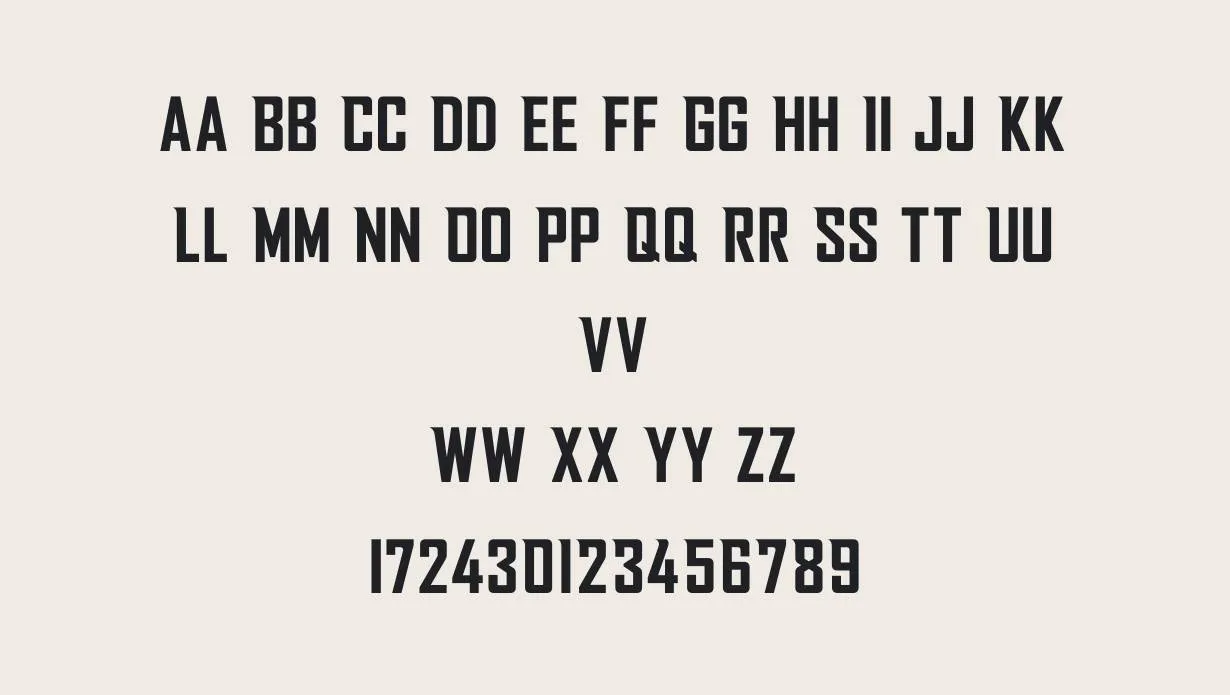
NCAA Washington St Font exudes a bold and athletic vibe, making it an ideal choice for sports-related designs. The font’s dynamic characters and strong presence make it perfect for team logos, banners, or any project that requires a competitive edge.
| Name | NCAA Washington St Font |
| Designer | Ashten Alexander |